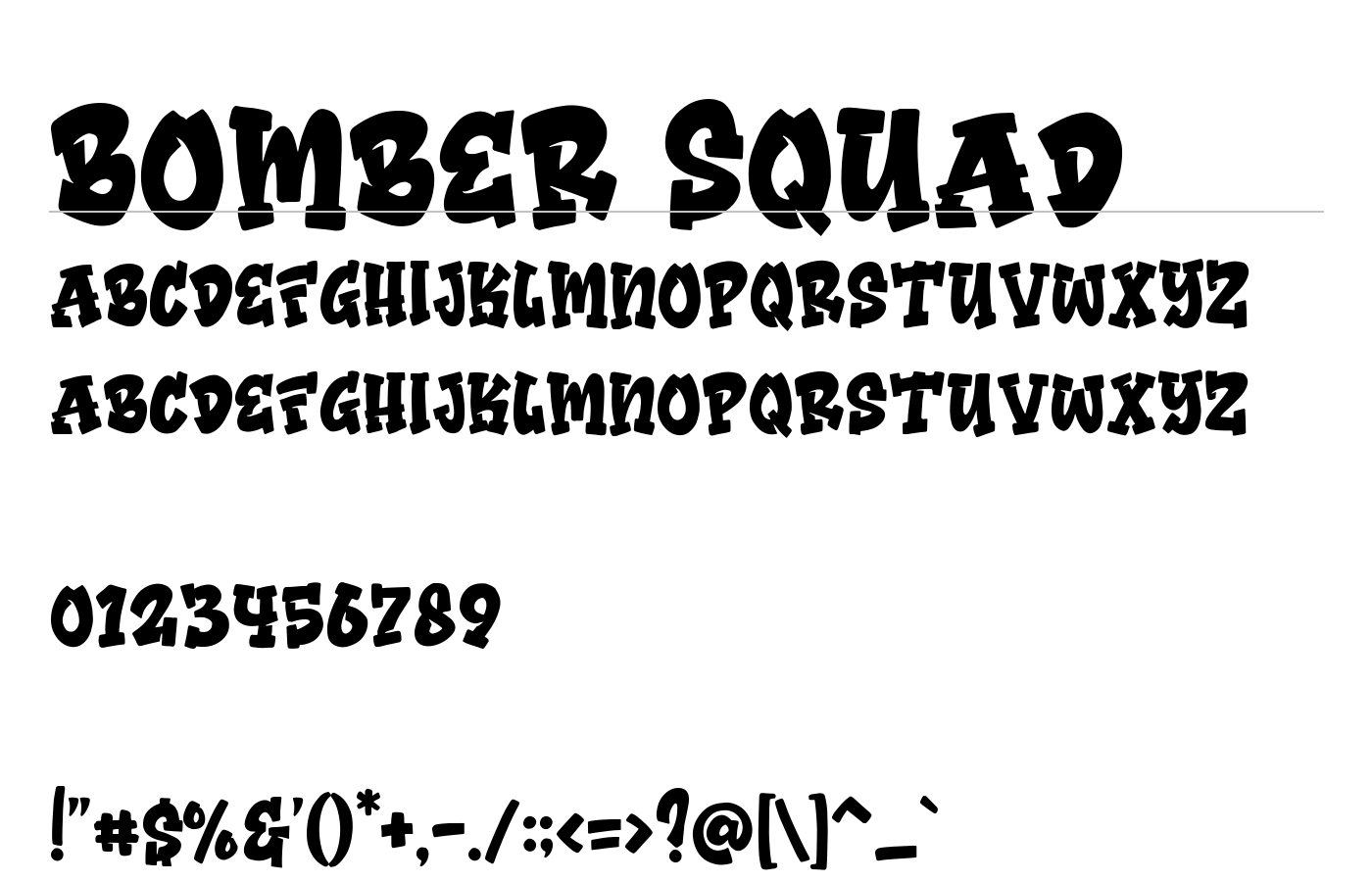
Bomber Squad is a bold, playful display font with chunky, irregular letterforms that give it a hand-drawn, graffiti-inspired feel. Its thick strokes and uneven edges evoke a fun, energetic vibe, making it perfect for youthful branding, posters, and creative projects where a lively and informal tone is desired. This font stands out best in large sizes for headlines or logos that want to capture attention with a vibrant, street-style personality.
Bomber Squad Font
About Bomber Squad Font
| Font family | Bomber Squad Font |